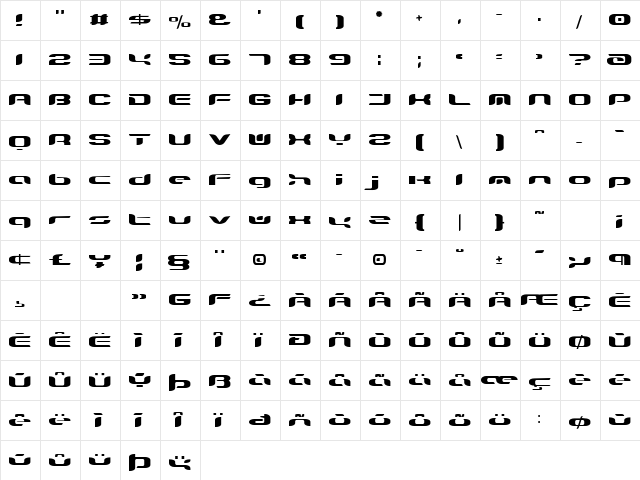
TeknikohlRemix01 Normal
Design Context for TeknikohlRemix01 Typeface
TeknikohlRemix01 is a composed and adaptable typeface that performs quietly and consistently across a wide range of design contexts.